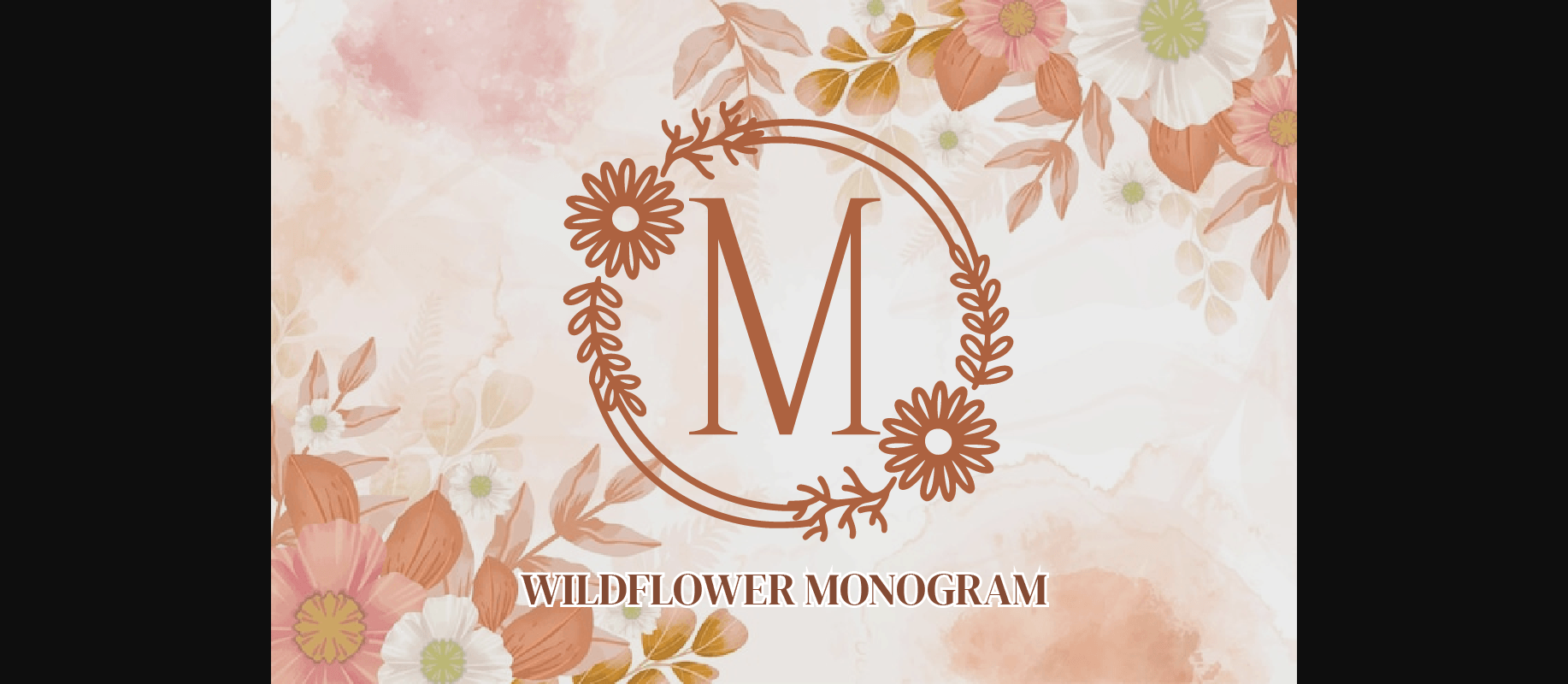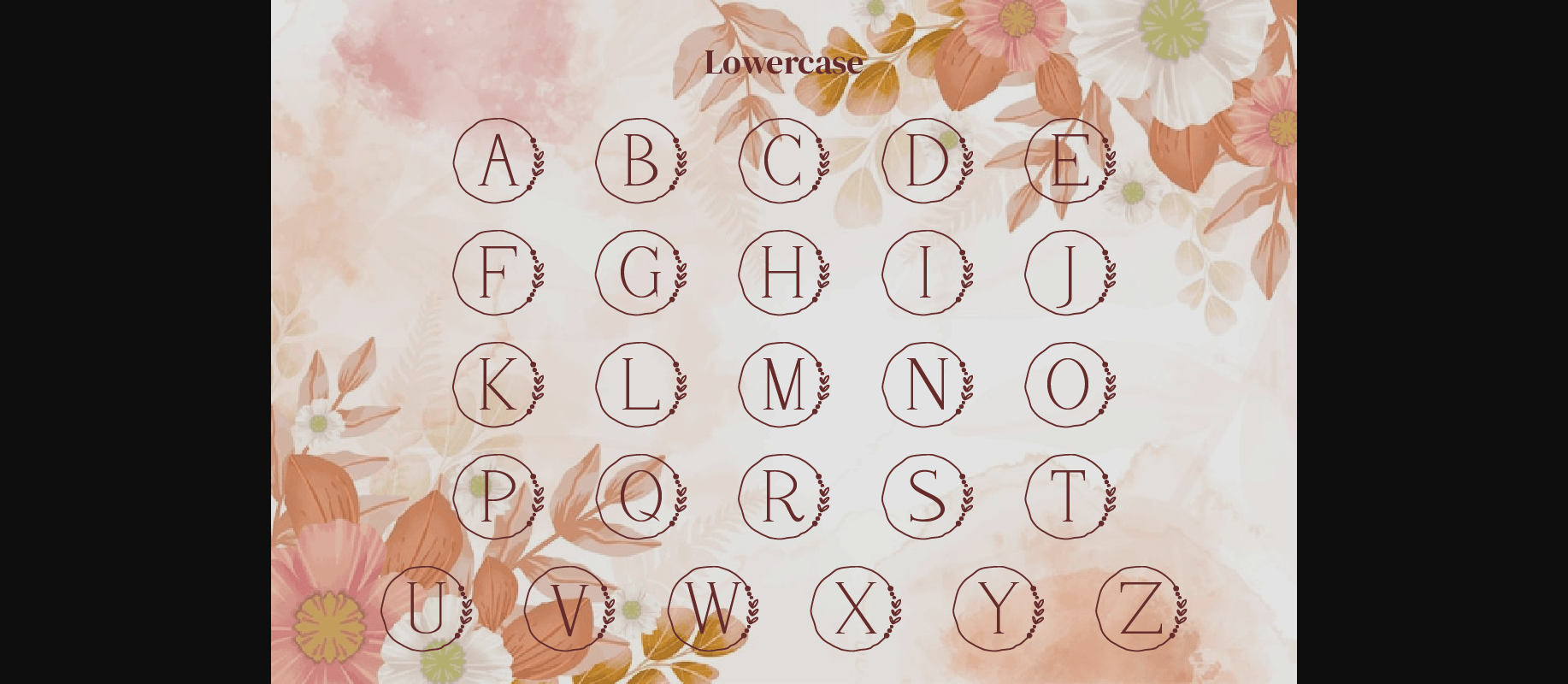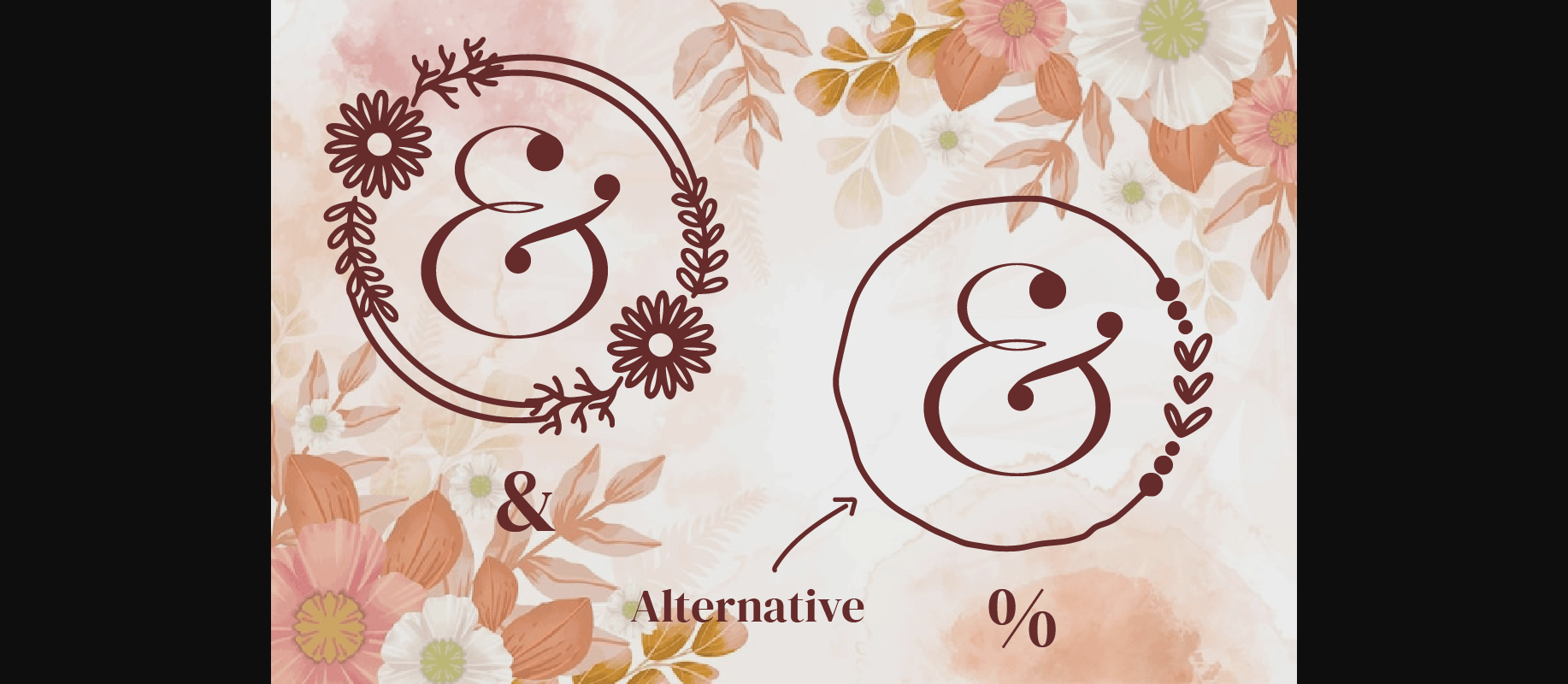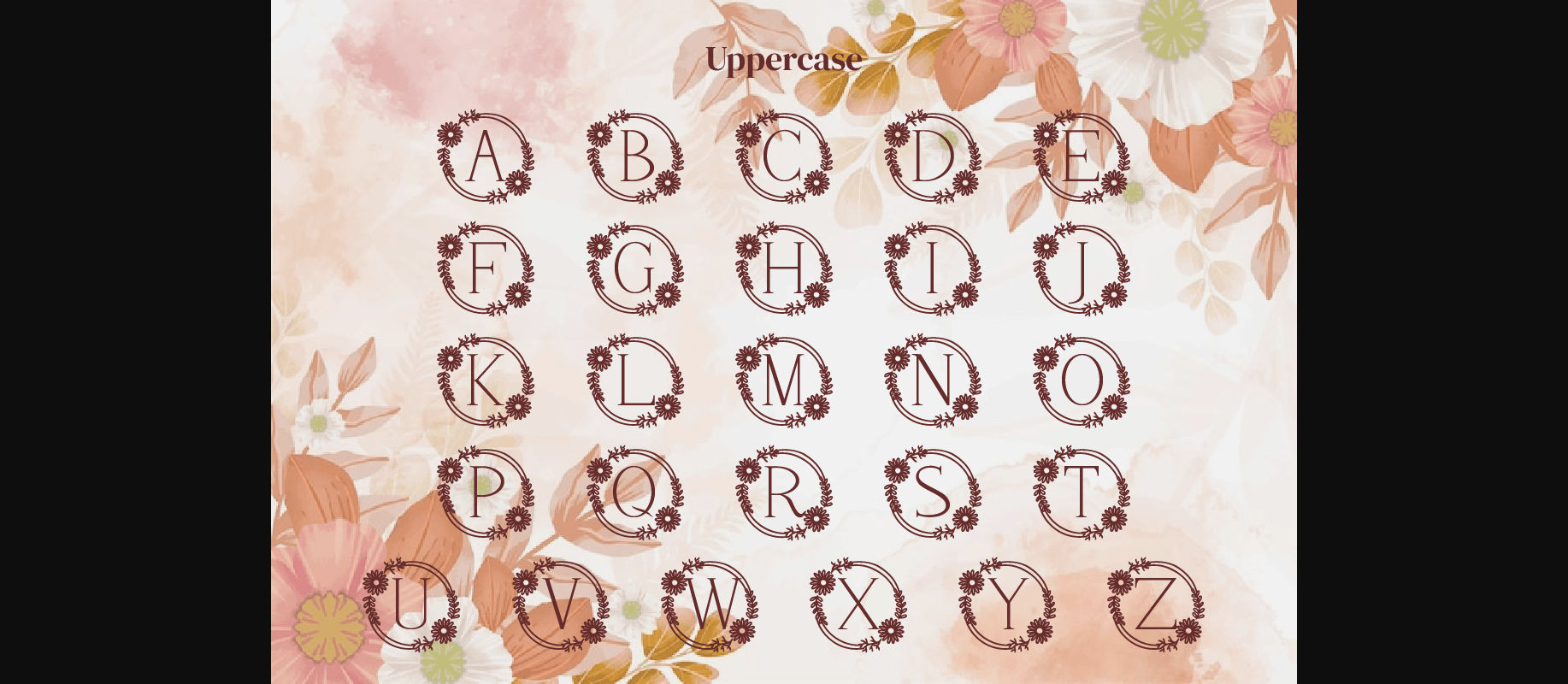
HomeDecorative FontsWildflower Font Decorative Fonts Wildflower Font FacebookXPinterestWhatsApp 1 of 6 ... Wildflower Font Poster 2... Wildflower Font Poster 3... Wildflower Font Poster 4... Wildflower Font Poster 5... Wildflower Font Poster 6... About Wildflower Font Wildflower is a wedding circle monogram font with a stylish touch inspired by the brides’ bouquets. Add this lovely decorative font to each of your creations and notice how they become true pieces of art! DOWNLOAD NOW People also explored Best Lettering Font Marcondensed Font Rolling Pen Extras Ksana Font Winter Sweeter Font Gendons Font Girlmind Font Raizo Font Unicorn Font 299 0 TagsWildflower Font Previous articleMargarethy FontNext articleButterfly Font LEAVE A REPLY Cancel reply Comment: Please enter your comment! Name:* Please enter your name here Email:* You have entered an incorrect email address! Please enter your email address here Website: Save my name, email, and website in this browser for the next time I comment. Personal Use Free Bally Girl Personal Use Free Read more about this font Girls Personal Use Free Read more about this font Yumail Personal Use Free Read more about this font Lumber Personal Use Free Read more about this font BLOG Using Fonts in Digital Marketing: Tips to Strengthen Your Brand Identity In the realm of digital marketing, every visual element plays a crucial role in shaping a brand's identity, and fonts are no exception. The... Where to Buy American Fonts Online in 2024 Top 7 Google Fonts Alternatives for Faster and Privacy-Friendly Web Design (2025) Modern Sans-Serif Fonts That Brands Love in 2025